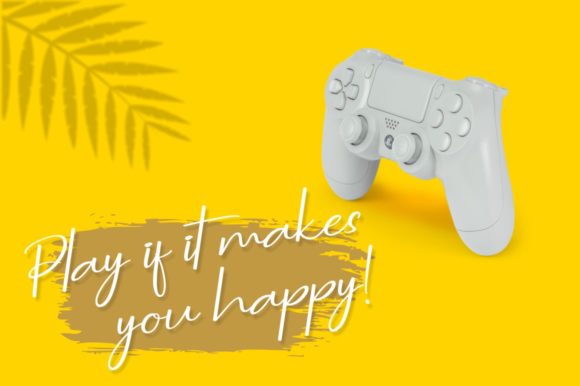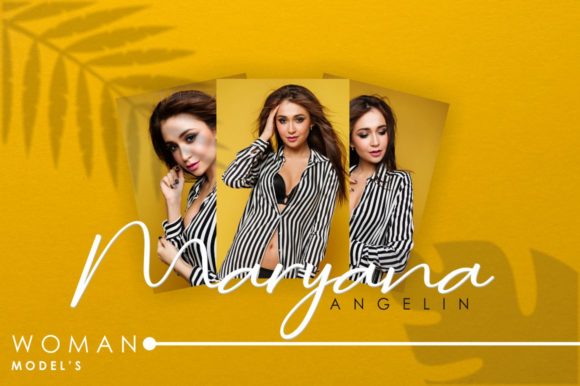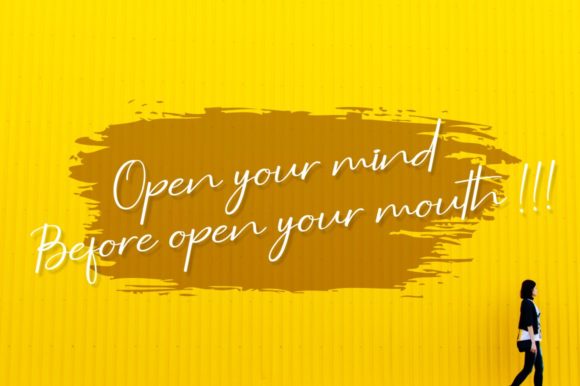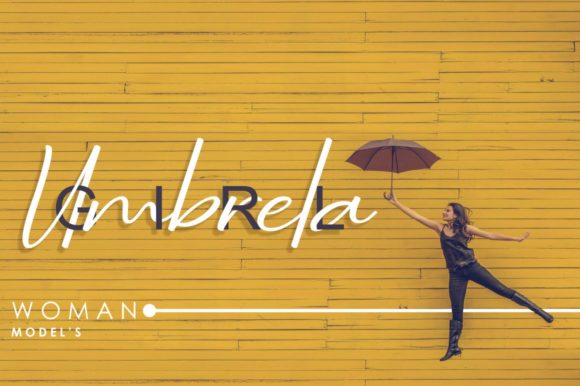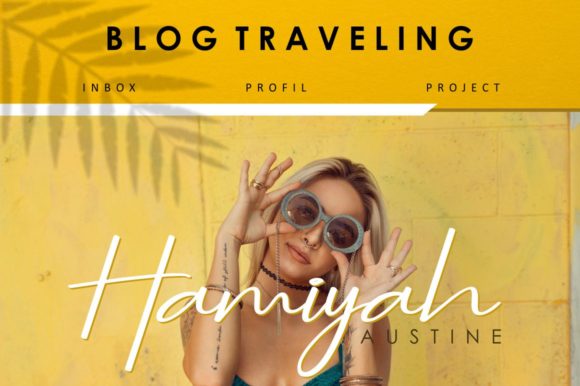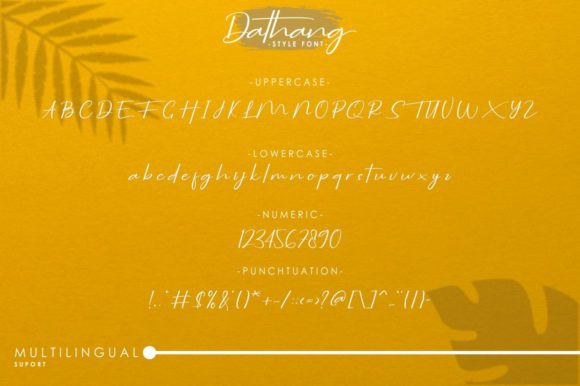
Introduction to Dathang Font
Dathang is a modern script font.
It’s perfect for logos, signatures, branding, merchandising and much more .
Key Features of Dathang Font
Why Choose Dathang Font?
Dathang Font offers exceptional quality and versatility, making it a valuable addition to your design toolkit. Whether you’re creating for personal projects or commercial use, Dathang Font delivers professional results.